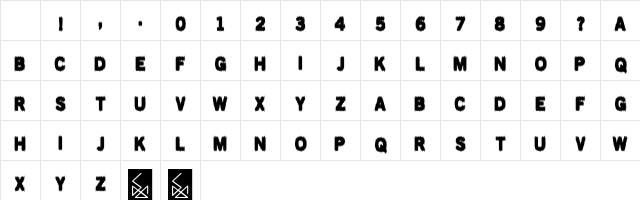
Complete MUDDY TYRES glyph index. Displaying only characters natively supported by MUDDY TYRES font.
MUDDY TYRES is a composed and adaptable typeface that performs quietly and consistently across a wide range of design contexts.